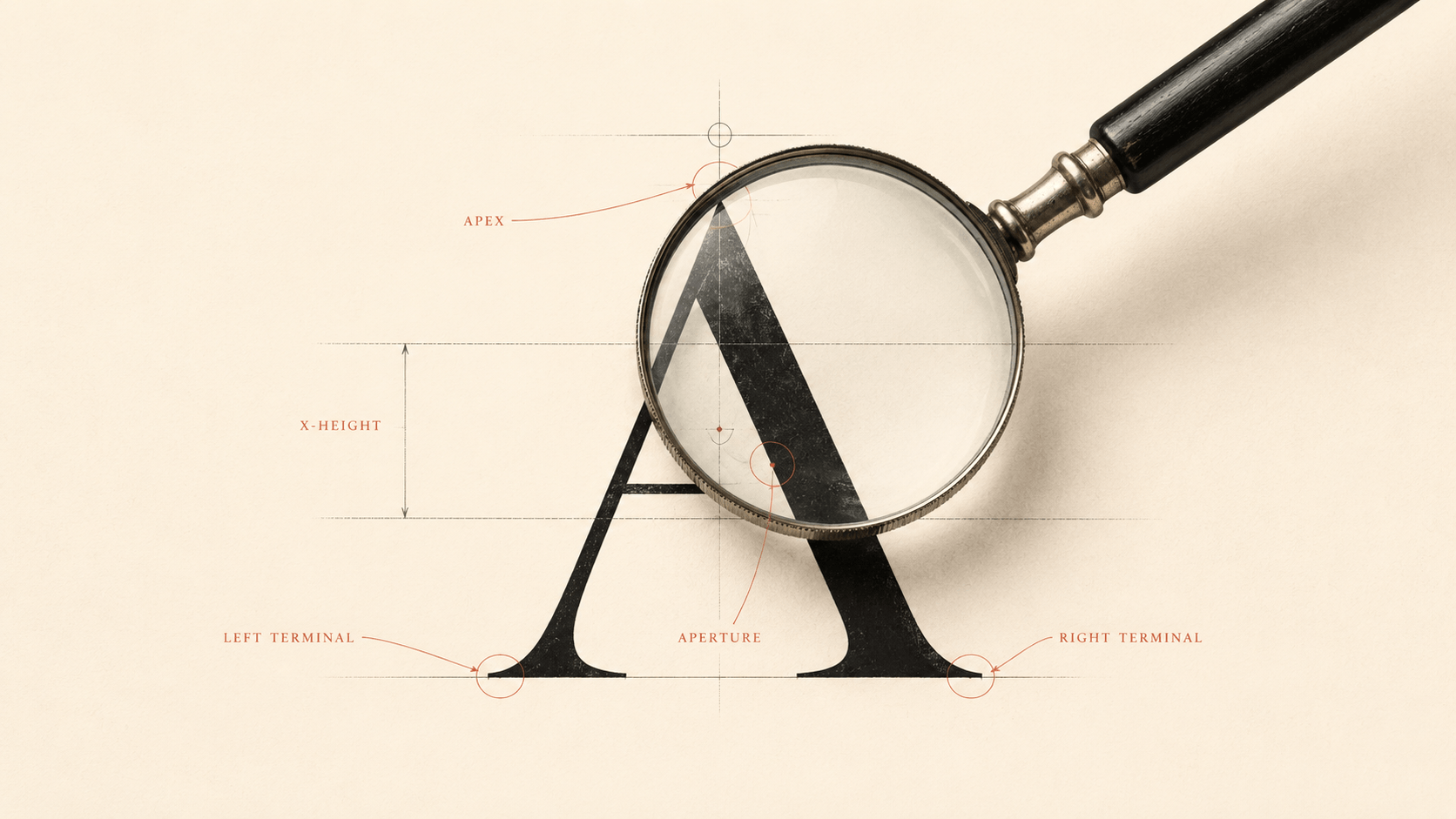
How to Identify a Font from a Logo or Image: 7 Tools and Techniques That Actually Work
Spotting a font you love on a brand's logo, a magazine spread, or a poster — and then having no idea what it's called — is one of the most universal frustrations in design. Identifying a font from an image used to be a slow, manual process. Today, the combination of AI-powered matching tools and a few sharp visual habits can name almost any typeface in minutes.
This guide walks through the seven methods that actually work in 2026, when to reach for each one, and how to verify the result before you commit to using it.
Why Font Identification Is Trickier Than It Looks
Before getting into tools, it helps to understand why identifying a font from an image is harder than it sounds. Logo fonts are rarely used straight out of the box. Brands modify letterforms, kerning, and proportions to create something distinctive. The Coca-Cola script, the Disney wordmark, and Google's logotype all started as existing typefaces — but the versions on the bottle, the theme park, and the search bar are heavily customized.
This means most font identification tools won't return a perfect match. They'll return the closest match — the typeface a designer most likely started from. That's often what you want anyway, because licensing the original is usually safer and cheaper than trying to recreate the custom version. (For a closer look at how brands modify their logo fonts versus their broader brand typography, see our guide to logo fonts vs brand fonts.)
1. Font in Logo — For Famous Brand Logos Specifically
If the font you're trying to identify is on a well-known brand's logo, the fastest answer is usually a curated database. Font in Logo catalogues the typefaces behind hundreds of major brands — Nike, Tesla, Sony, BMW, The New York Times, Nvidia, and many more — with each entry verified by designers or community submissions. Our companion piece on the 100 most famous logo fonts ever used gives a broader overview if you want to browse rather than search.
Where it shines: recognizable brands. If the logo is famous, the answer is usually one search away, and you'll get the verified typeface name plus context on whether it's the original font or a modified version.
Where it struggles: obscure or local brands won't be in the catalogue. For those, fall back on the visual identification tools above.
2. Font Squirrel Matcherator — The Underrated Free Option
Font Squirrel's Matcherator is the free alternative most designers eventually find. Like WhatTheFont, it works from an uploaded image — but the interface lets you select individual characters one by one, which often produces better results for tricky letterforms.
Where it shines: free-to-use, no signup, surfaces both commercial and free fonts in results. Useful when you want to know if a typeface has an open-source alternative.
Where it struggles: a smaller library than WhatTheFont, so very obscure typefaces may not appear at all. The character-by-character interface also takes longer than a single upload.
3. Adobe Capture (Mobile App) — Best for Real-World Photos
If the font you're trying to identify is on a sign, a book cover, or a printed brochure rather than a digital image, Adobe Capture on iOS and Android is hard to beat. Point your phone's camera at the lettering, and the app uses Adobe Fonts' library to identify the closest match in real time.
Where it shines: photographs, signage, packaging, anything in the physical world. The auto-correction for camera angle and lighting is genuinely good.
Where it struggles: matches are limited to fonts in Adobe's library — so if the typeface is from another foundry, you'll get a near-match suggestion instead of the actual font.
4. Identifont — When You Have No Image at All
Identifont takes a completely different approach: instead of analyzing an image, it asks you a series of yes-or-no questions about specific letterforms ("Does the lowercase 'a' have a curved tail?"). After 10 to 20 questions, it produces a ranked list of candidates.
Where it shines: situations where you can see the typeface but can't easily upload it — for example, you're describing a font you saw at a client meeting from memory, or the image is too low-resolution for visual matching to work.
Where it struggles: the database hasn't kept up with newer typefaces. If the font is post-2015, Identifont may not know it. It's also slower than visual matching when an image is available.
5. WhatTheFont (MyFonts) — Best for Quick Automated Matches
WhatTheFont, run by MyFonts, is the most popular automated font identifier on the web. Upload an image, crop tightly around the letters you want to identify, and the tool returns a ranked list of typeface candidates with similarity scores.
Where it shines: clean, high-resolution images of standard sans serif and serif typefaces. If the image is sharp and the font isn't heavily stylized, WhatTheFont will usually nail it within the top three results.
The fastest workflow most professional designers use is a combination: try a visual matching tool first, fall back to a curated database if the brand is recognizable, and verify the result manually before committing to a license. Font identification is no longer the slow, frustrating process it used to be — but the best results still come from knowing which tool to reach for, and when.